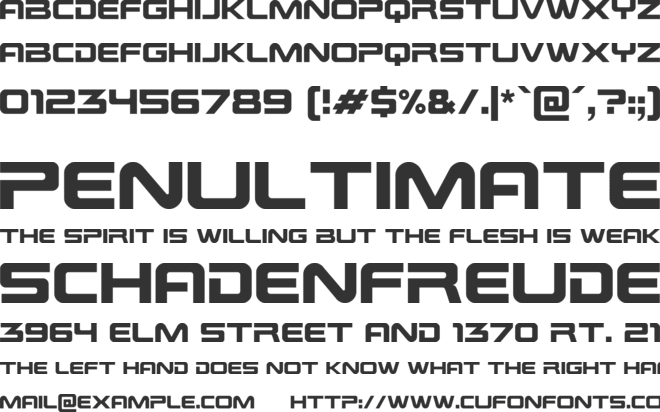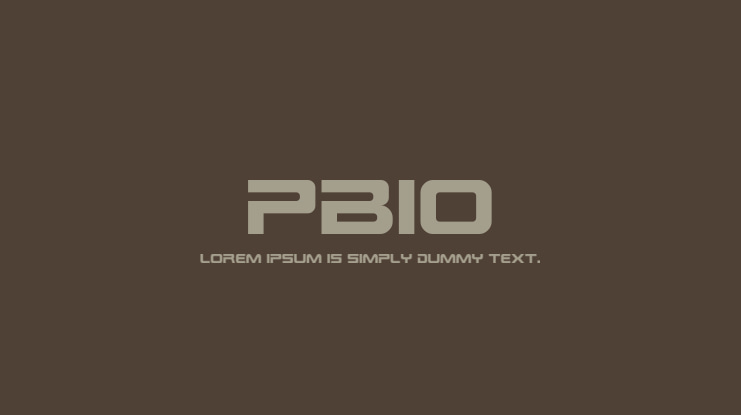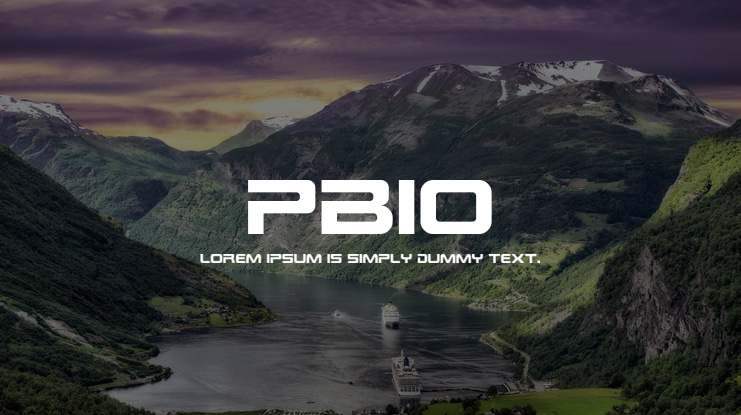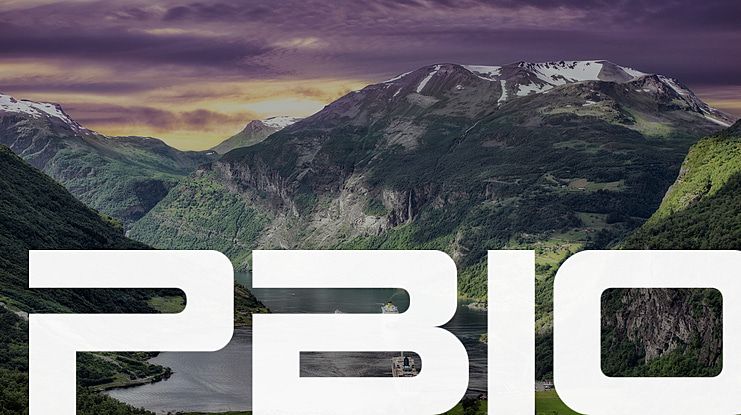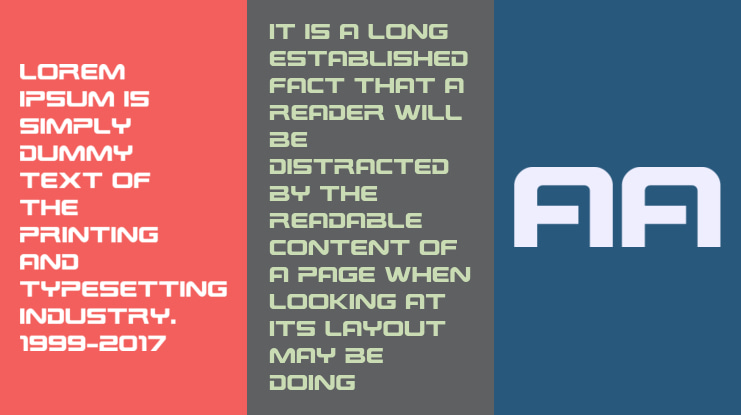
PBIO Font
Gregor Adams
A replica of the font used by Roland. It can be seen on various of their machines (eg. TR-909). The original font was called RBIO. I called this one PBIO. P(ixelass)BIO. This set includes over 300 characters.